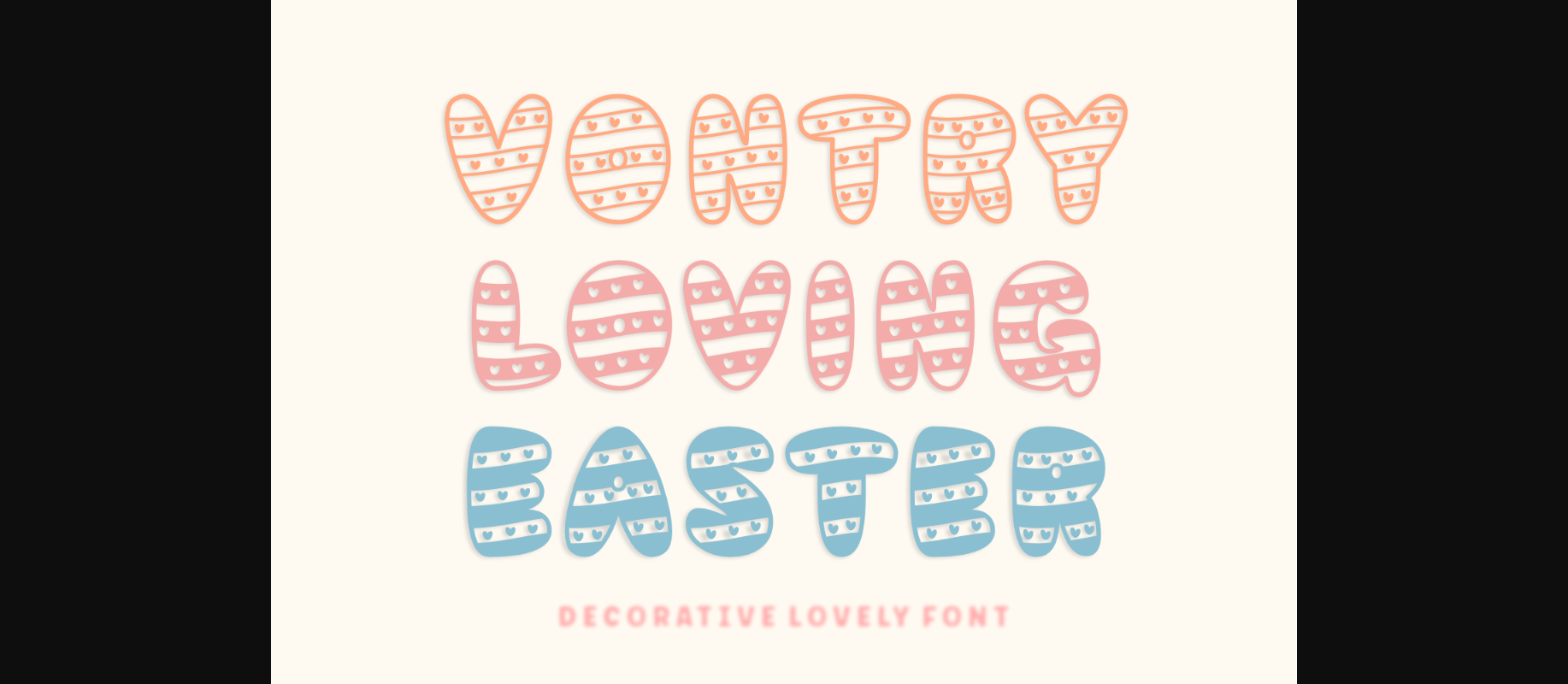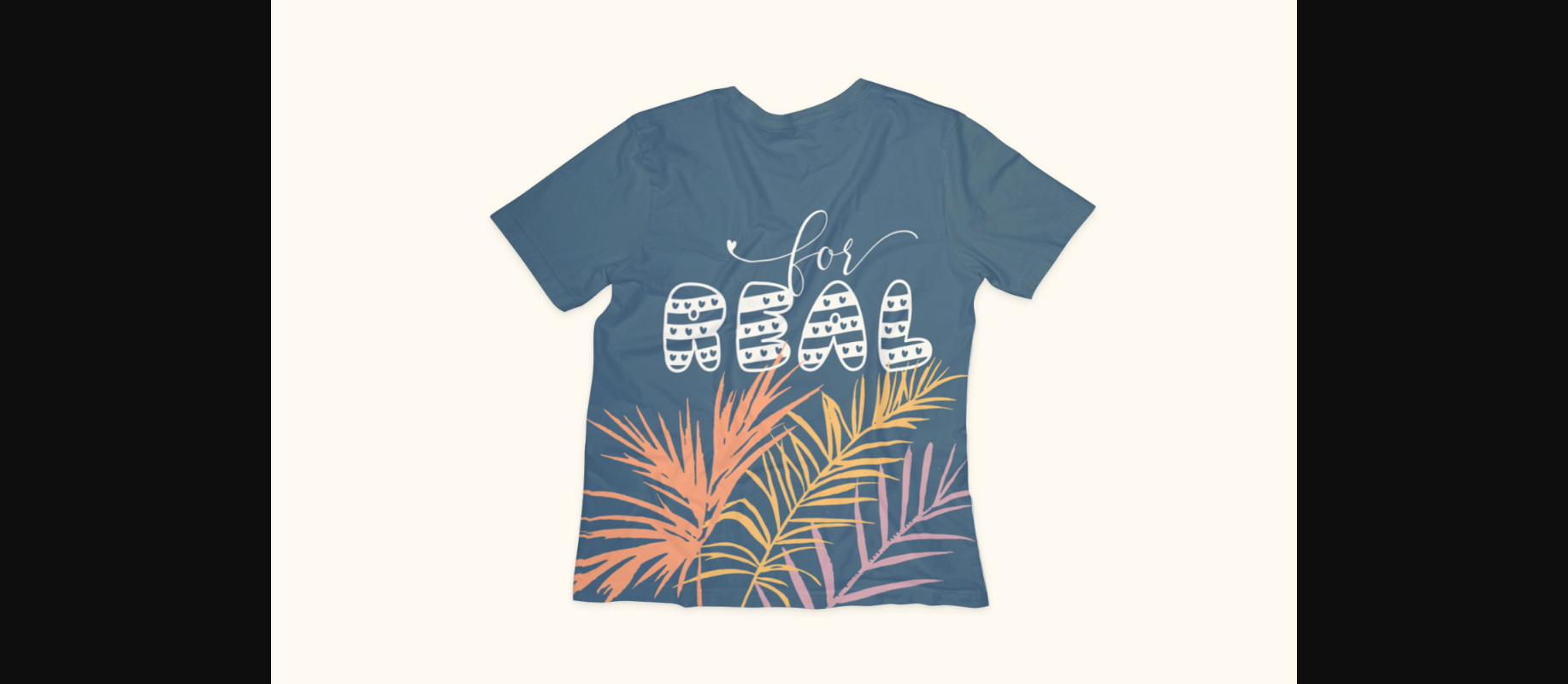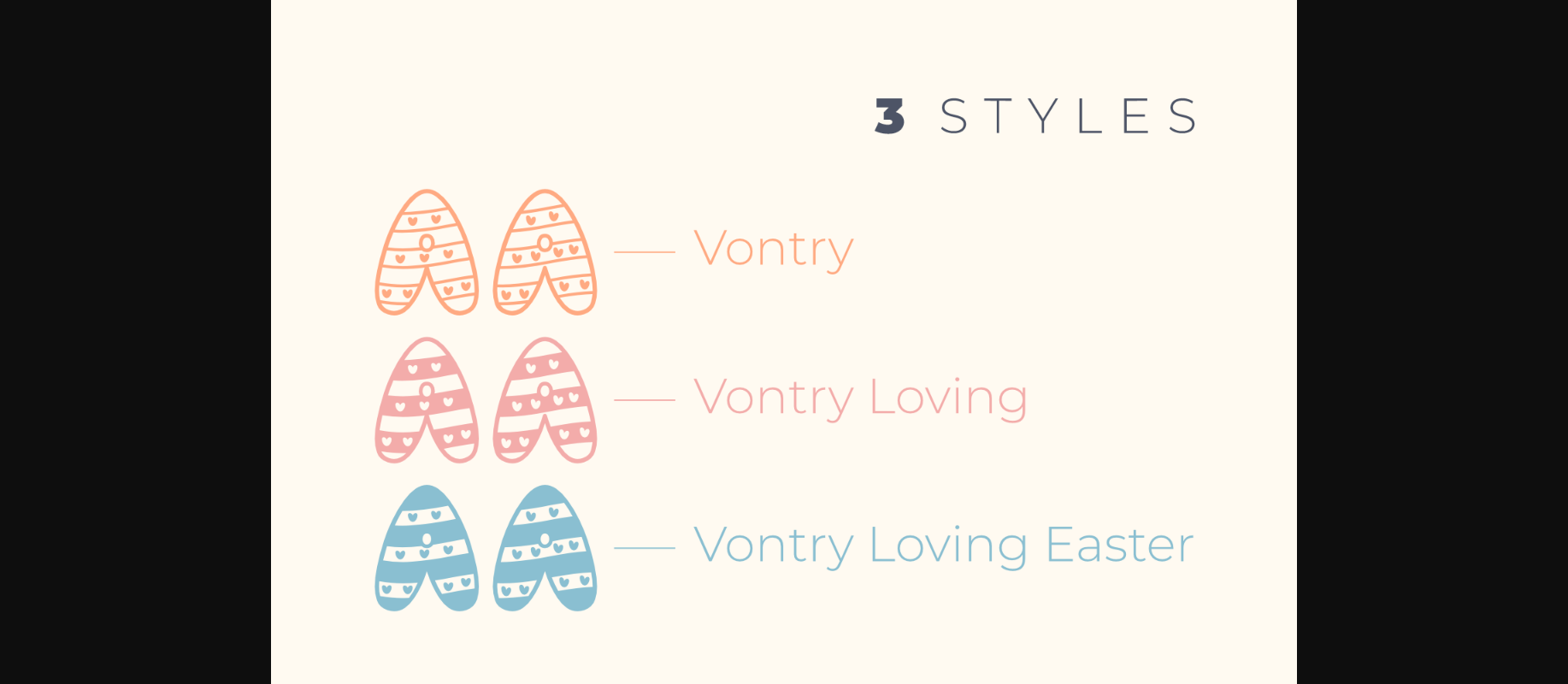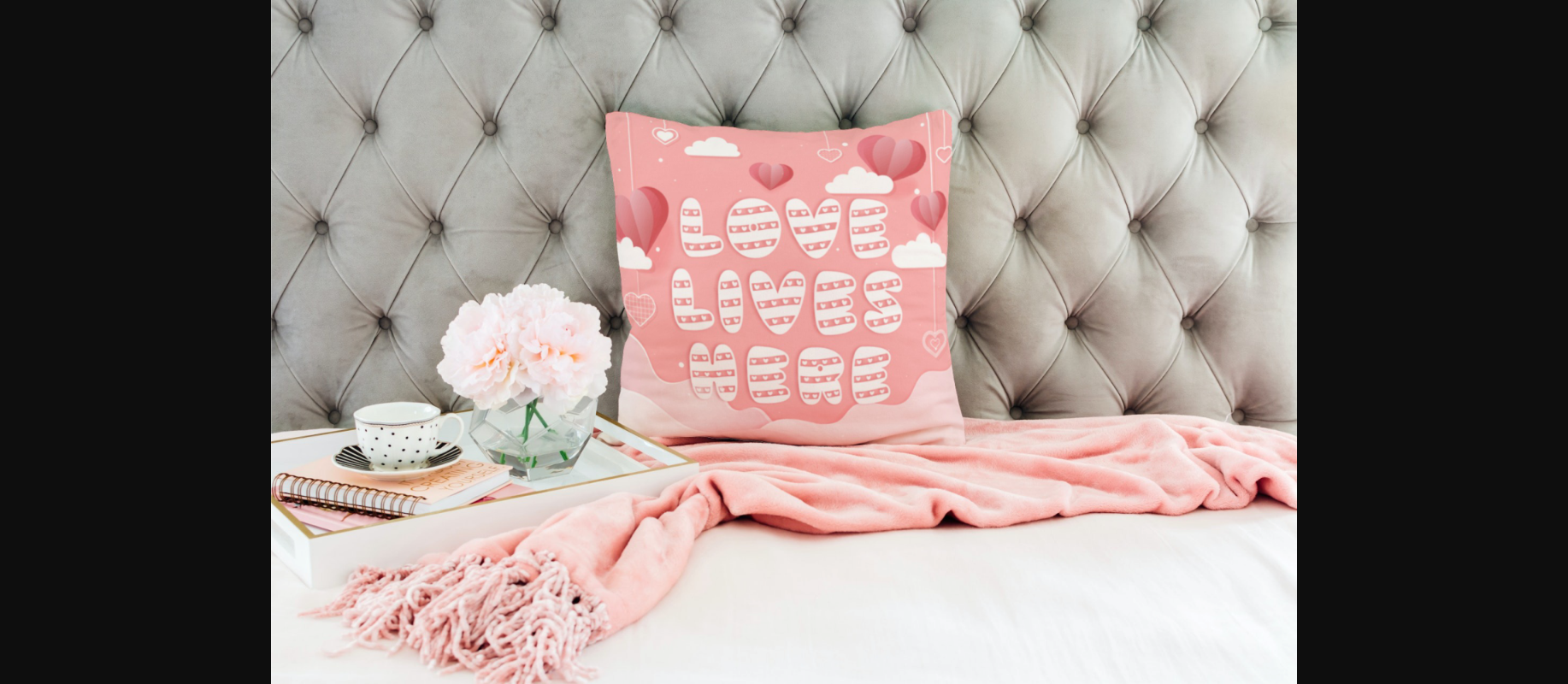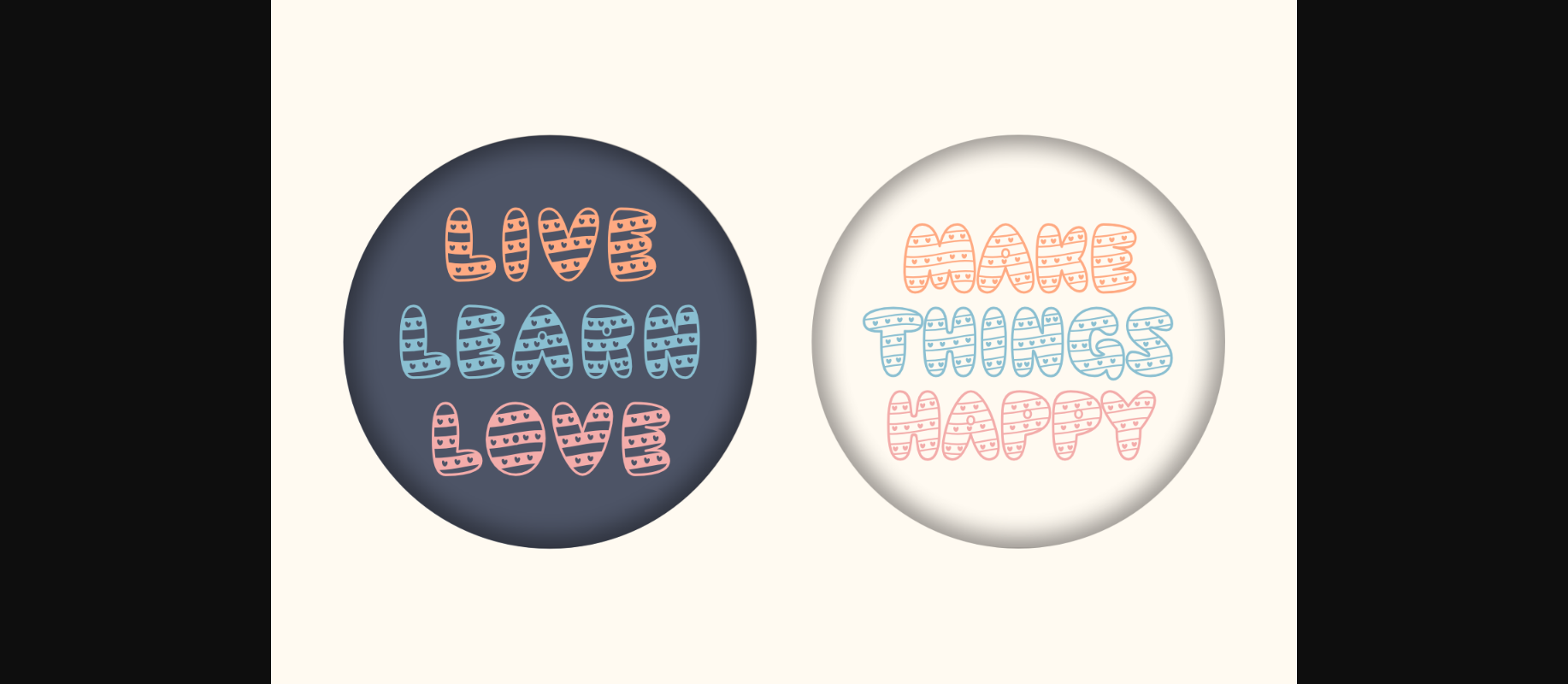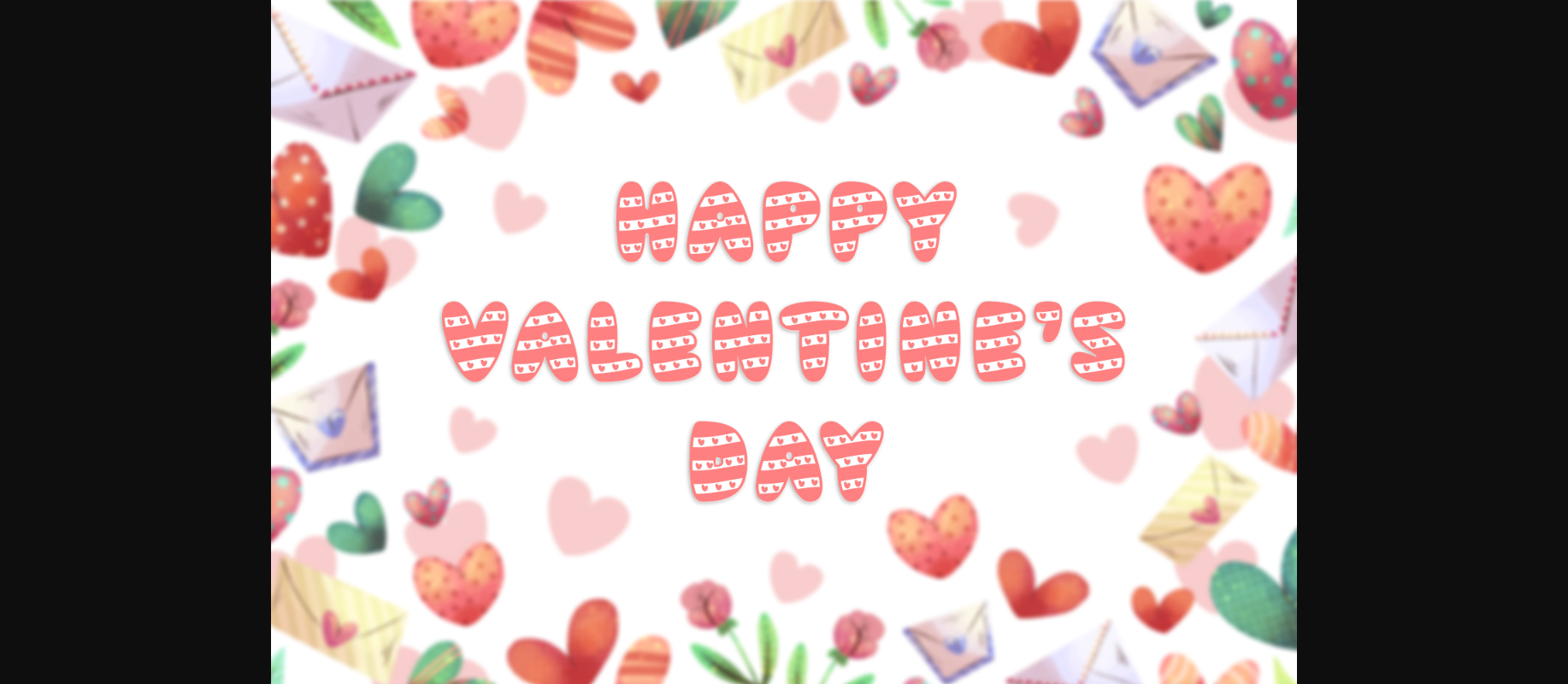
Vontry Font
About Vontry Font
Add a touch of charm to your designs with this gorgeous decorative font. Its graceful lines and ornate details make it perfect for creating memorable graphics such as invitations, posters, and social media posts. Vontry font will elevate your designs and leave a lasting impression.